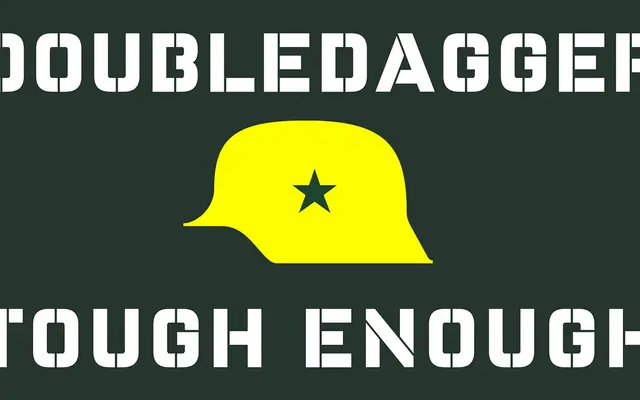
DoubleDagger
A clean geometric stencil typeface spanning six weights with an accompanying dingbat set.
DoubleDagger is a geometric stencil family built around orthodox, regular forms that keep it legible across a wide range of applications. Six weights from Thin to Black give designers plenty of tonal range, while the Xtra subfamily adds a dingbat set for supplementary graphic elements. The clean stencil construction suits editorial, packaging and campaign work where a structured, industrial character is needed without excessive stylisation.
A geometric stencil typeface with clean, structured forms; the stencil cuts and geometric construction place it firmly in the display category rather than general-purpose sans-serif.